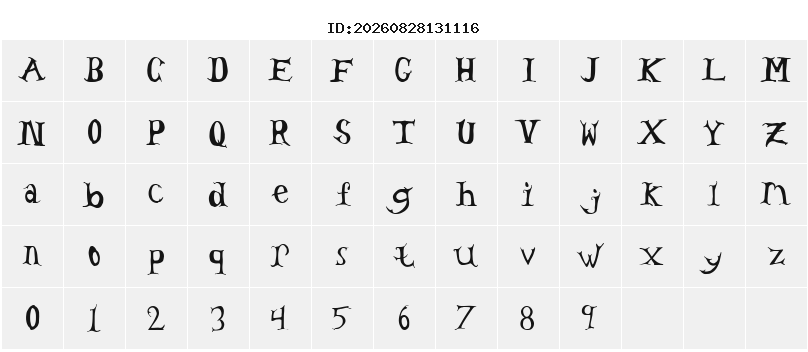
Tom's Headache Preview
• Font Name: Tom's Headache
• Designer: Tom Murphy 7
• Manufacturer: [Divide By Zero] Fonts
• Description: Created by Tom Murphy 7. I have a headache today; this is what it looks like. Not meant to be a pretty font. Headache caused by: Too Much English Paper, Not Enough Money. [Divide By Zero] fonts: http://members.aol.com/vroomfonde/ttf/